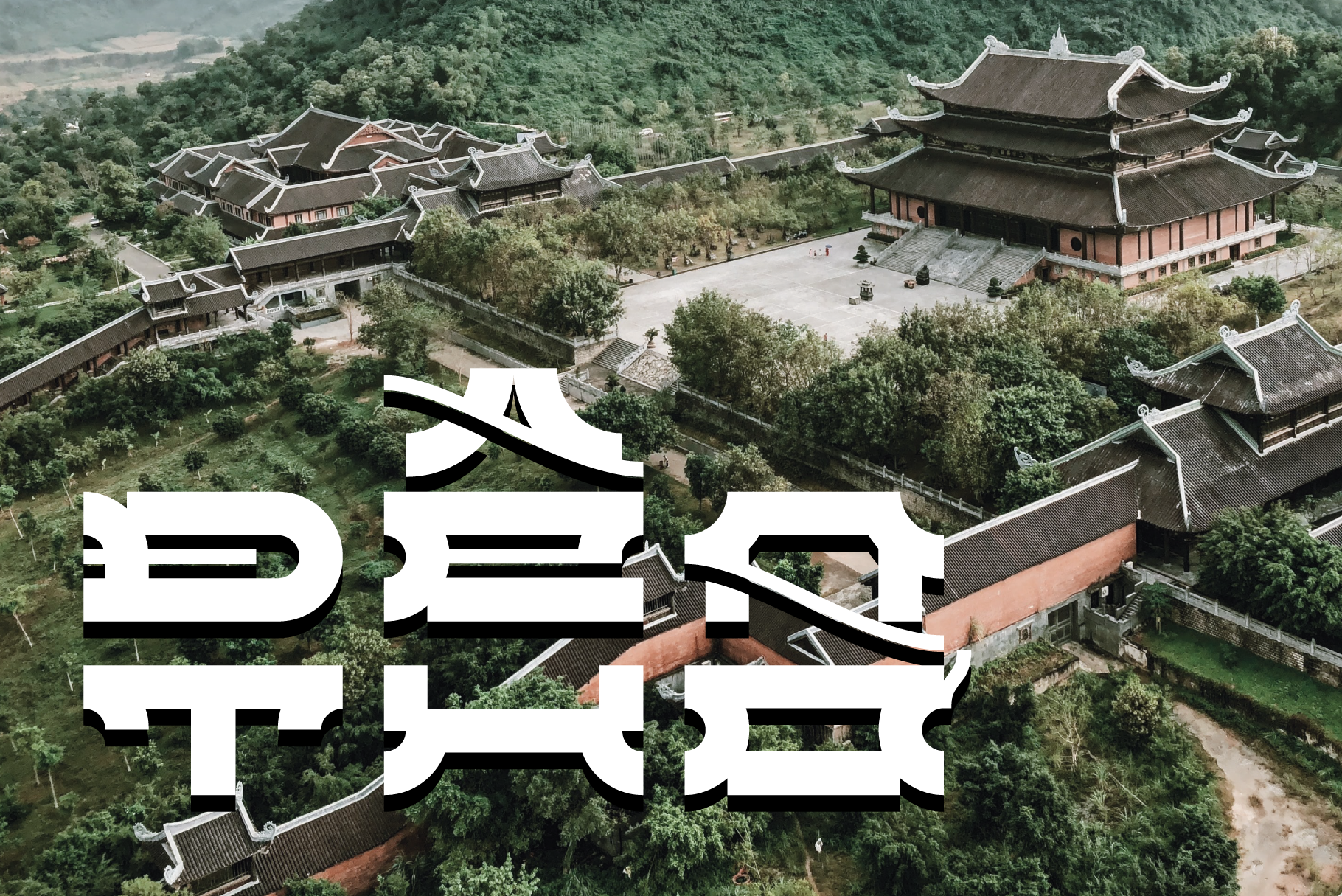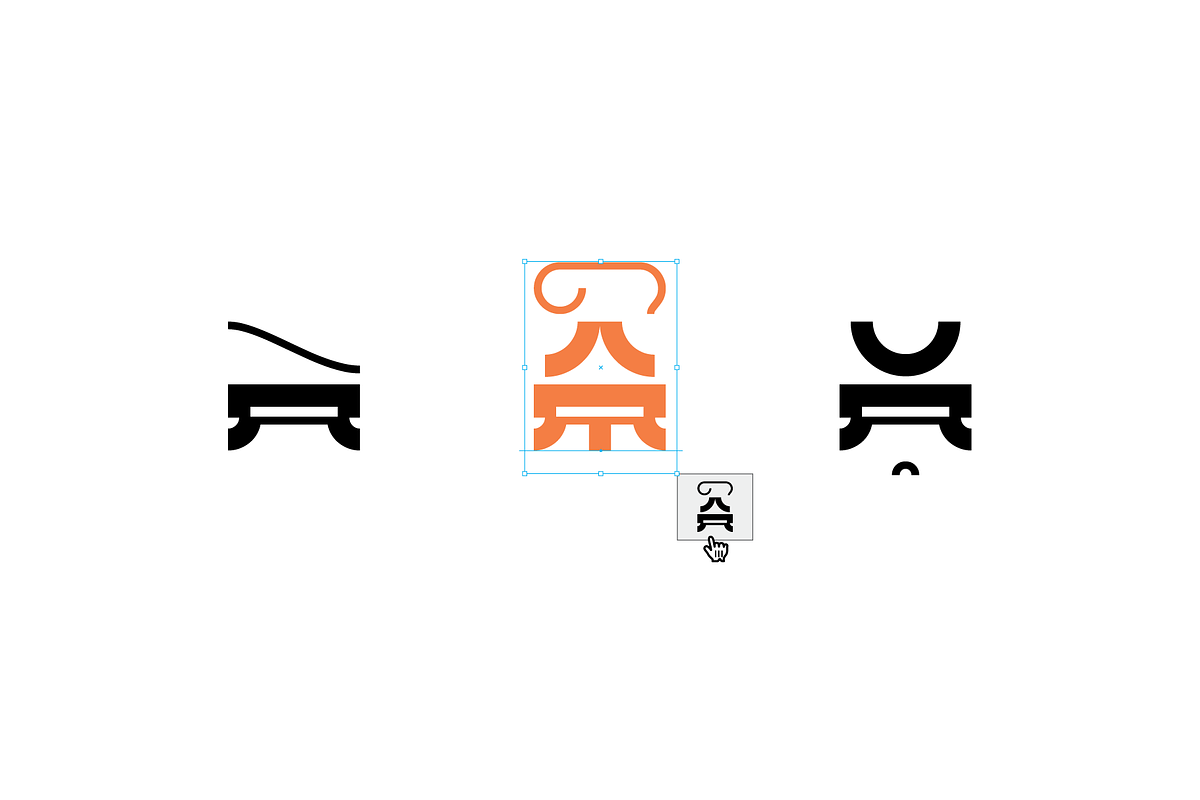
Den Typeface
DEN (ĐỀN THỜ) - TYPEFACE
DESIGNED WITH THE VIETNAMESE ALPHABET. DEN IS THE CUSTOM DISPLAY TYPEFACE WAS INSPIRED BY THE ARCHITECTURE, INTERIOR OF TEMPLES IN VIETNAM. BY COMBINING TRADITIONAL MATERIALS WITH MODERN SHAPES, DEN HAVE ASIAN FEELS BUT ALSO WORKS WITH LATIN ALPHABET.